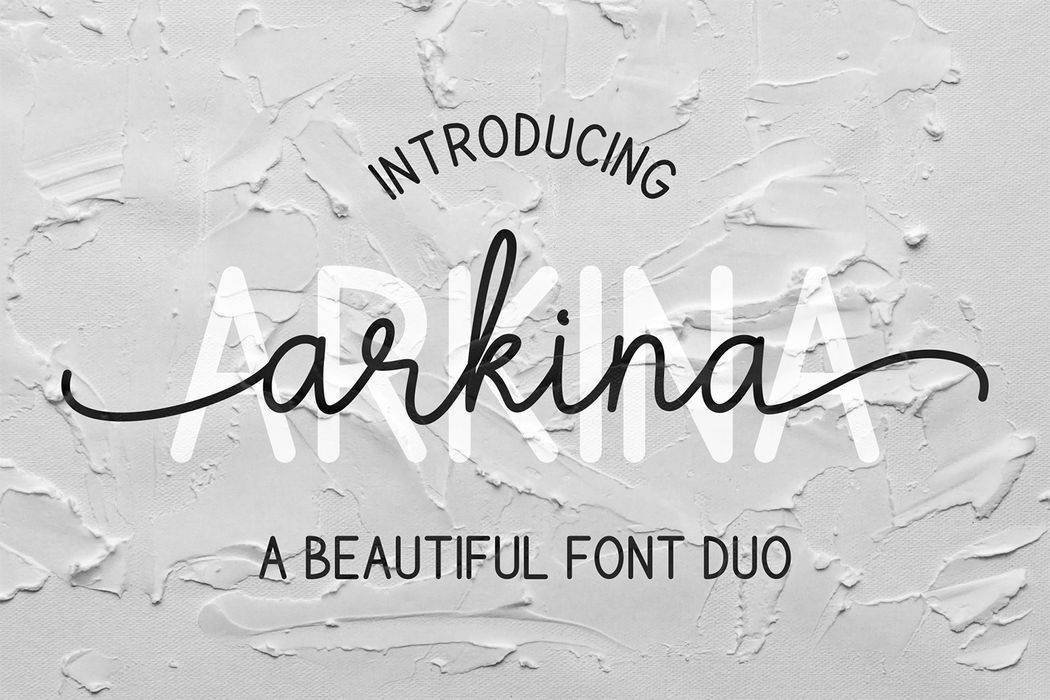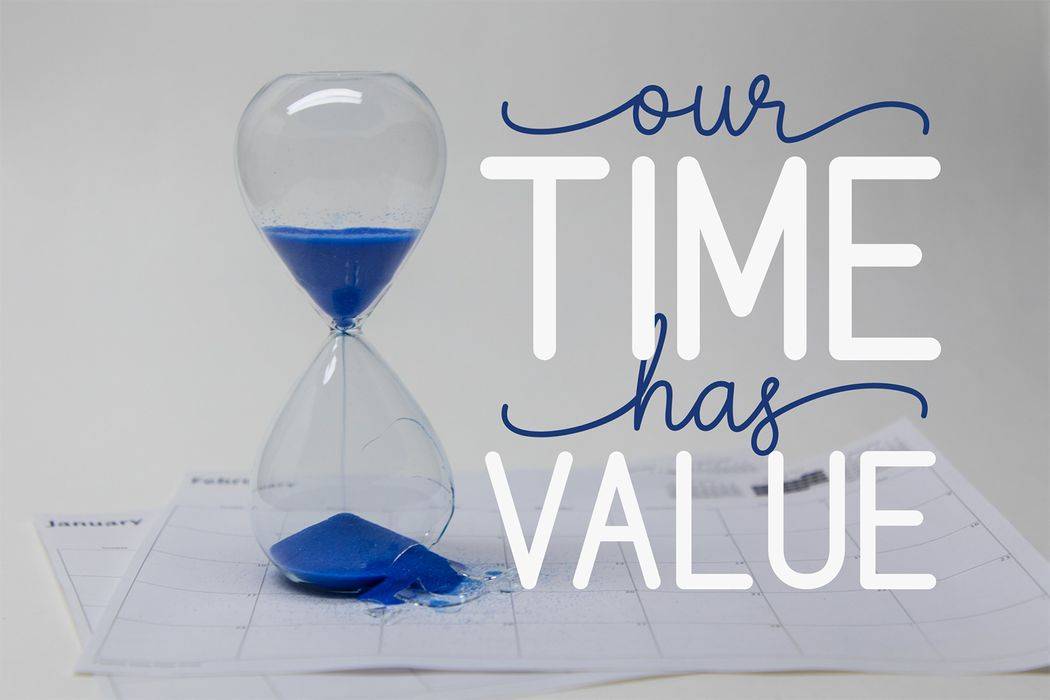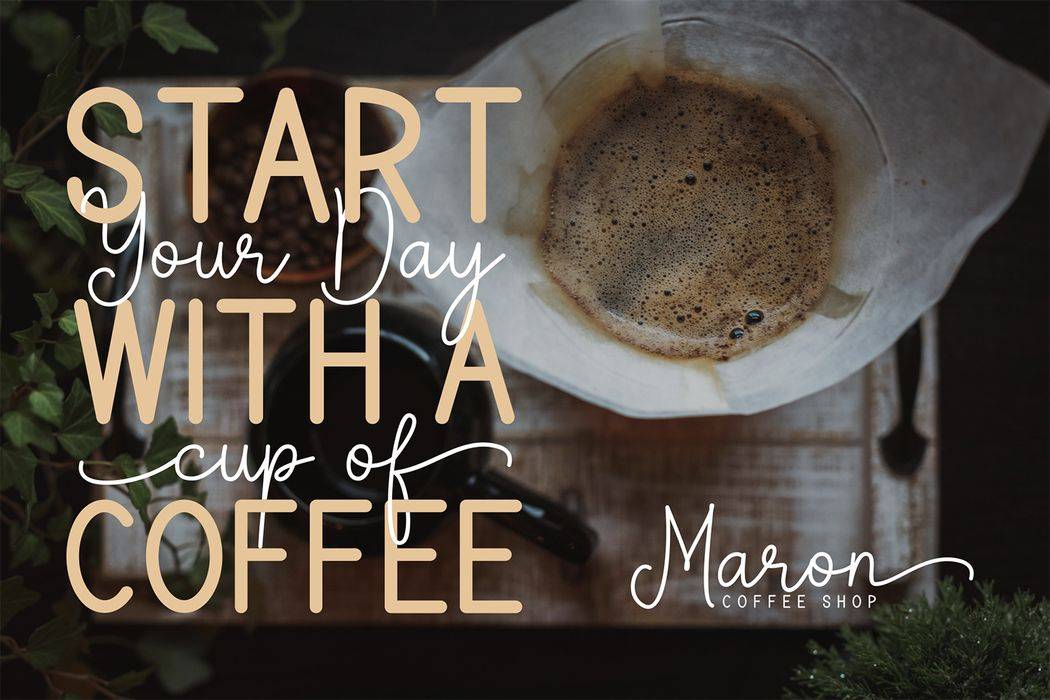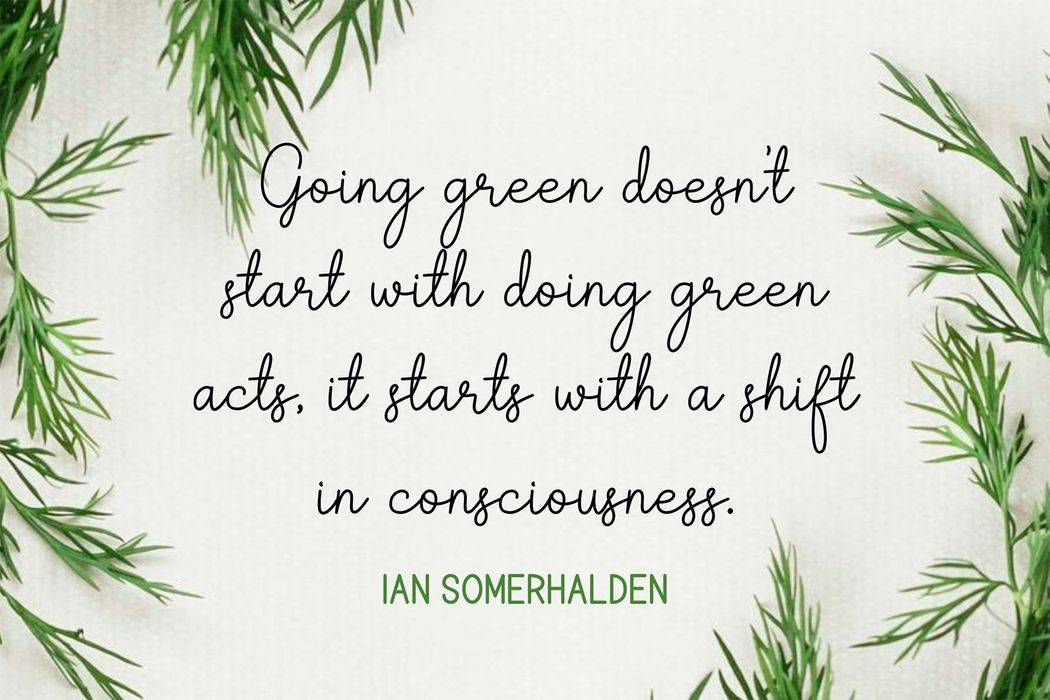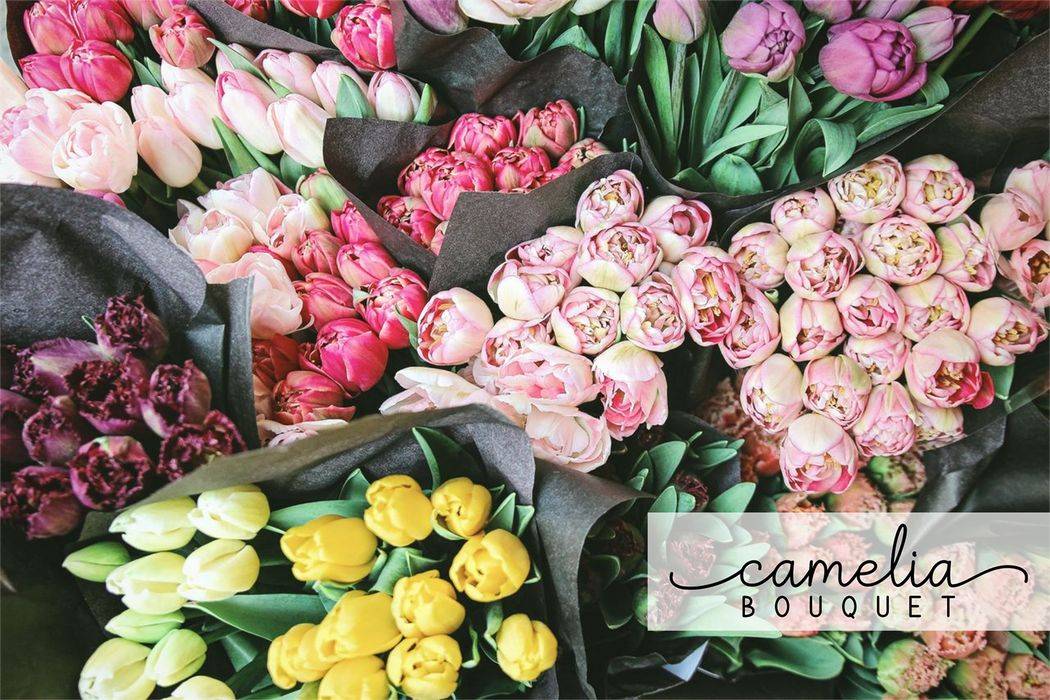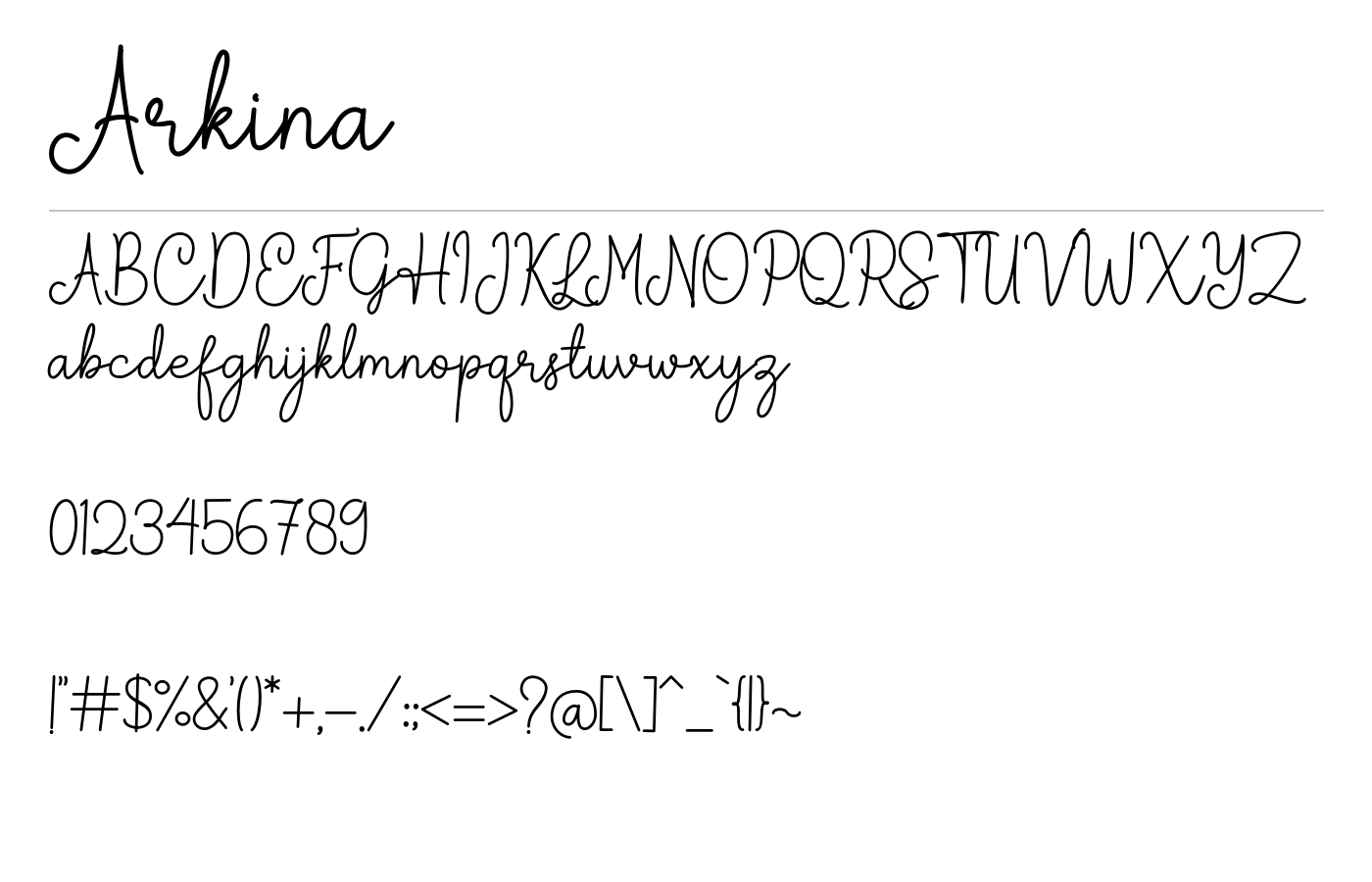
Arkina is a delicate, handwritten script font characterized by its thin, flowing strokes and elegant, slightly whimsical letterforms. Its tall x-height and consistent light weight create a modern yet playful feel, making it ideal for creative branding, invitations, and personalized design projects where a charming and approachable touch is desired. This font works beautifully in display sizes, adding a sophisticated, friendly personality to any design.
Arkina Font
About Arkina Font